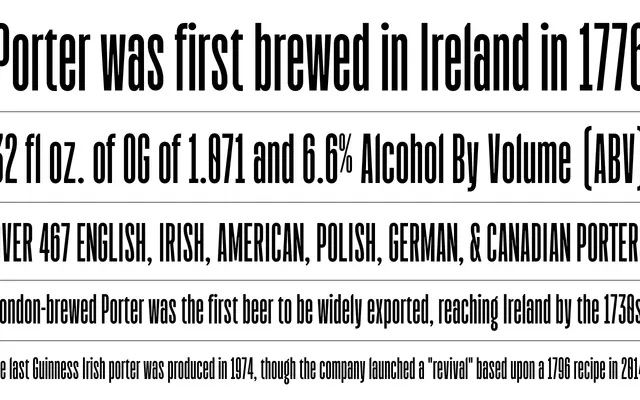
Porter Sans
An ultra-condensed, uniwidth engineered sans designed for CPG packaging and large-scale display use where space is tight.
Built around a uniwidth principle where all alphabetic characters from caps to lowercase share the same set width, Porter Sans keeps messaging predictable in constrained spaces. Its industrial character suits packaging and brand identity work at large sizes, and it is sold as part of Badson Type's Brand Palette Collection 01, a set of four fonts aimed at CPG branding. Individual styles are available separately or as part of the collection.
Described as an ultra-condensed engineered sans with industrial pedigree, Porter Sans sits firmly in the condensed grotesque tradition, optimised for display and large-scale use rather than continuous text.